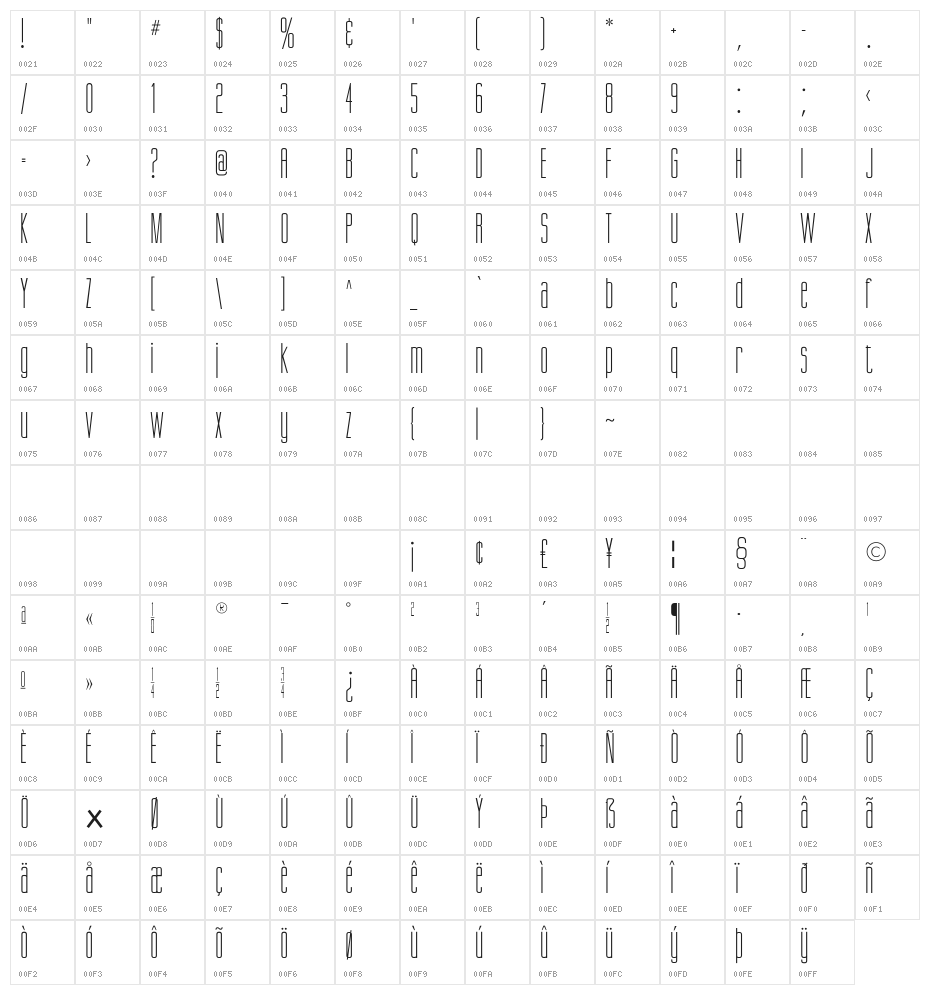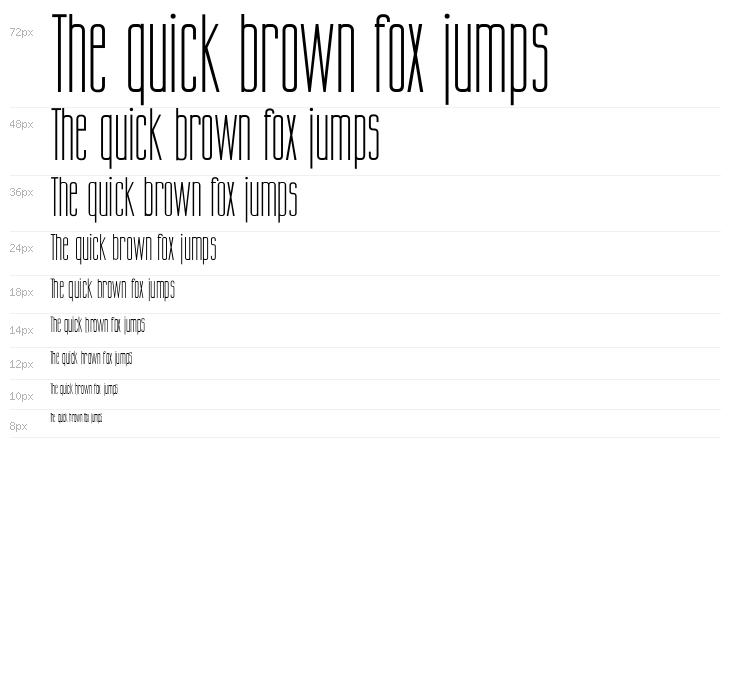
GiottoFLF Font
GiottoFLF Description
This font features an elongated, narrow design with clean lines and a modern aesthetic. The characters are tall and slender, creating a sense of elegance and sophistication. The uppercase and lowercase letters maintain a consistent height ratio, contributing to a uniform appearance. The numerals and special characters are designed to match the overall style, ensuring visual harmony across all elements. The font's minimalistic approach makes it suitable for contemporary design projects where clarity and style are paramount.
Proposed ProjectsIdeal for fashion magazines, luxury branding, modern art posters, and minimalist web design.